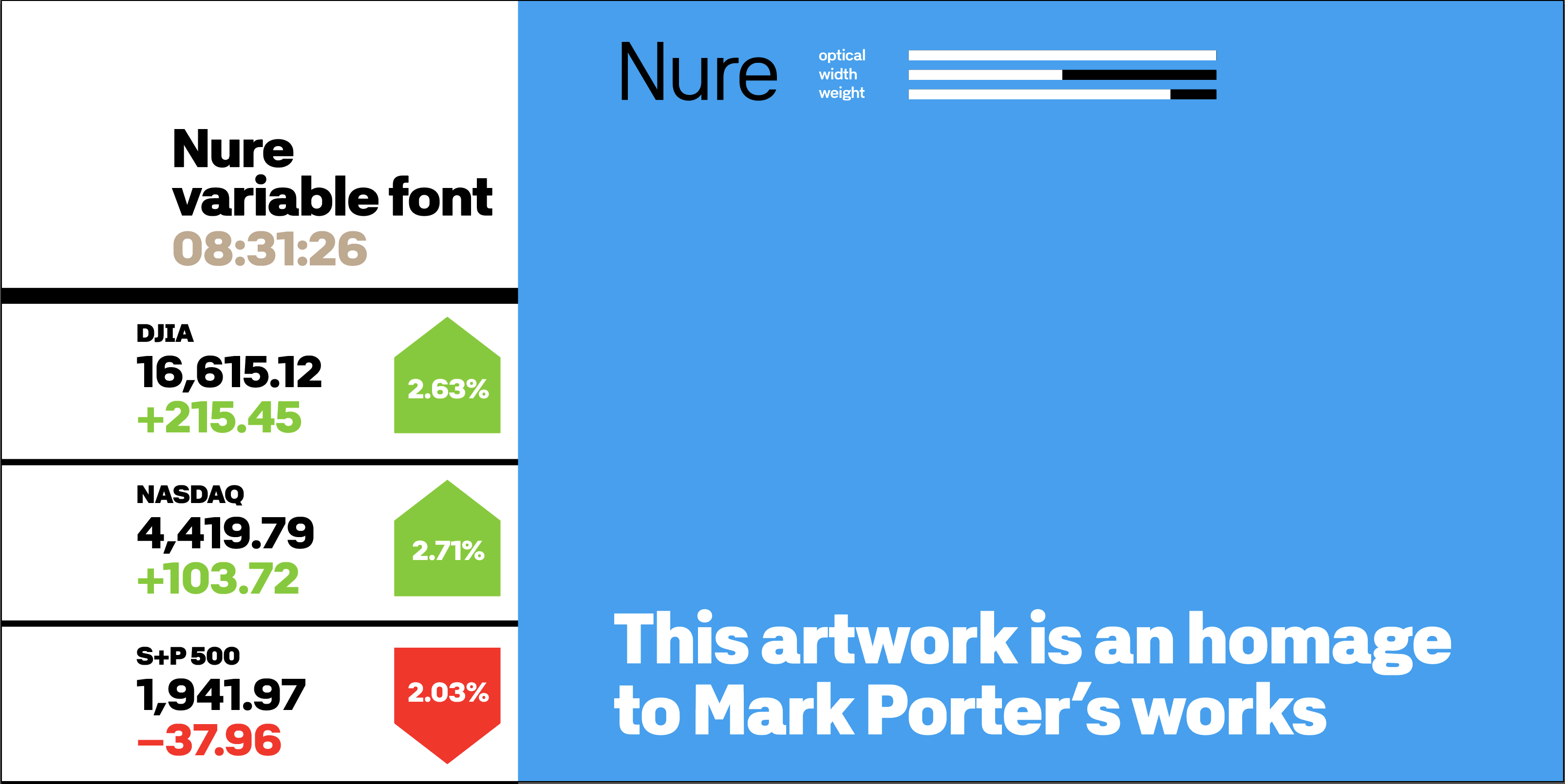
Nure Variable Font Free Download is a contemporary sans-serif typeface designed with modern aesthetics and readability in mind. Featuring a smooth and minimalistic design with variable weights, Nure is ideal for a wide range of projects, from digital interfaces to branding, editorial design, and packaging. Its versatility allows it to be used in various creative contexts, making it a great choice for both professional and casual design needs.
The Nure Variable Font allows you to easily adjust the weight, giving you full control over the typography's visual presence. Whether you're designing large-scale headers or body text, this font offers the flexibility to create a harmonious and cohesive layout.